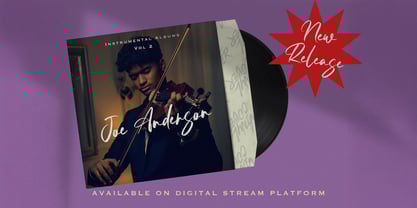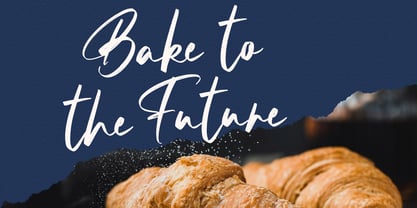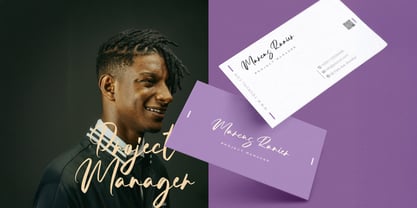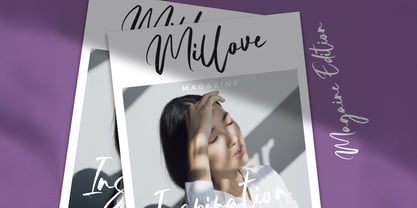
The Resttu Pagi Font Family was designed by Virgiawan Listanto and published by Stringlabs Creative Studio. Resttu Pagi contains 1 styles.
Awaken your designs with Resttu Pagi, a warm and inviting handwritten font that captures the gentle freshness of a new morning. With its smooth, flowing strokes and authentic ink-on-paper feel, Resttu Pagi brings a cozy, personal touch to every word perfect for projects that need to feel bright, genuine, and full of promise.